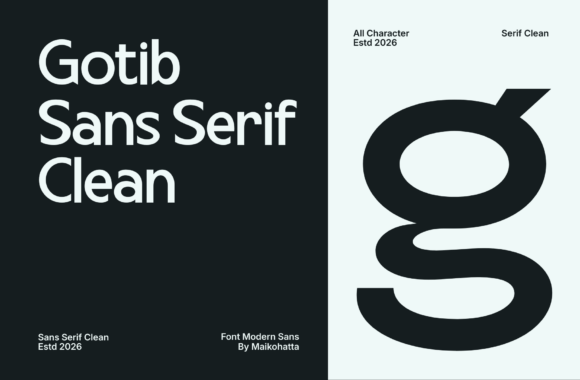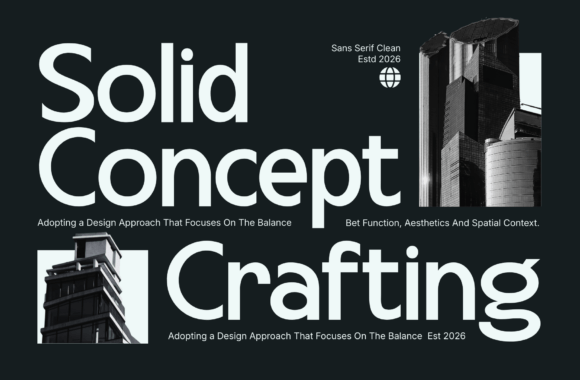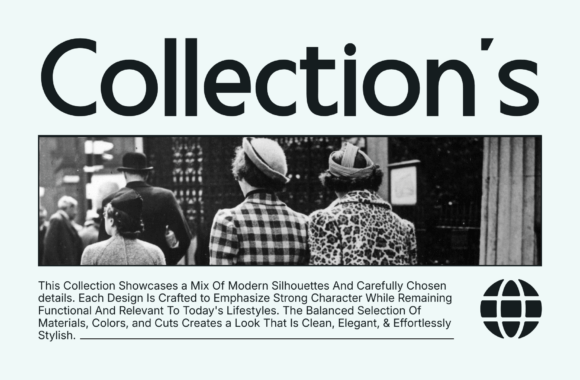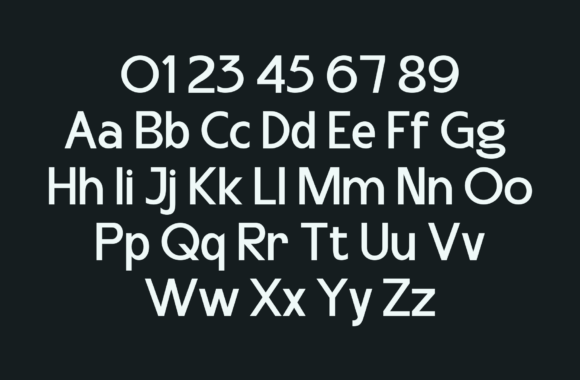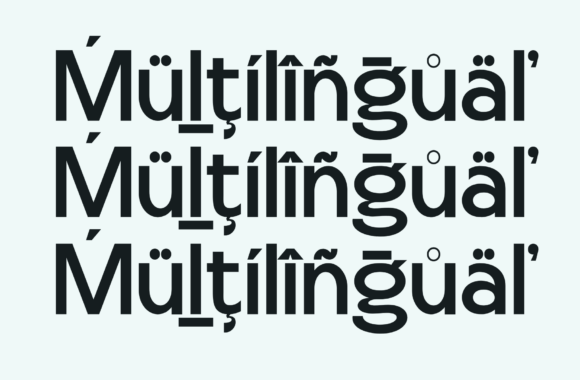
Introducing Gotib: The Ultimate Modern Sans Serif Font for Designers
In the world of typography, a well-crafted font can elevate a design project from good to great. For designers and crafters looking for a modern, elegant, and versatile sans serif font, we are excited to introduce Gotib. This beautifully designed font is perfect for a wide range of applications, from branding and logos to web design, UI/UX, and social media content.
What Makes Gotib Stand Out?
Gotib is a modern, clean sans serif font that embodies simplicity, clarity, and contemporary style. Its balanced proportions and refined letterforms create a professional and highly legible look, making it an excellent choice for designers seeking a font that can convey their message with elegance and sophistication.
One of the key features of Gotib is its minimalist aesthetic. Without excessive ornamentation, each character is carefully designed to ensure clarity and versatility across a wide range of design applications. This makes Gotib an excellent choice for creative, corporate, technology, fashion, and startup projects.
Gotib is a versatile font that can be used in a variety of design applications, including:
- Branding: Create a lasting impression with Gotib’s elegant and modern design.
- Logos: Use Gotib to create a professional and memorable logo for your business.
- Headlines: Add a touch of sophistication to your headlines with Gotib’s clean and refined letterforms.
- Posters: Make a statement with Gotib’s bold and elegant design.
- Web Design: Use Gotib to create a modern and responsive website that engages your audience.
- UI/UX: Enhance the user experience with Gotib’s clear and legible design.
- Editorial Layouts: Add a touch of elegance to your editorial layouts with Gotib’s refined typography.
- Social Media Content: Elevate your social media content with Gotib’s modern and sophisticated design.
Why Choose Gotib?
There are many reasons why designers and crafters should choose Gotib for their next project:
- Modern and Elegant Design: Gotib’s modern and elegant design makes it perfect for designers seeking a font that can convey their message with sophistication.
- Highly Legible: Gotib’s refined letterforms and balanced proportions create a highly legible font that is easy to read.
- Versatile: Gotib can be used in a wide range of design applications, from branding and logos to web design and social media content.
In conclusion, Gotib is a modern, elegant, and versatile sans serif font that is perfect for designers and crafters looking for a font that can elevate their design projects. With its balanced proportions, refined letterforms, and minimalist aesthetic, Gotib is an excellent choice for a wide range of design applications. Whether you’re working on a branding project, creating a logo, or designing a website, Gotib is the perfect font for you.